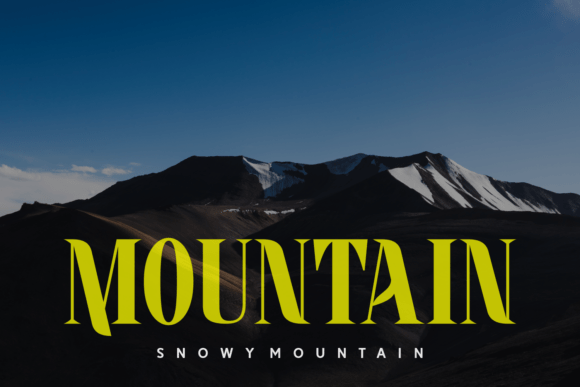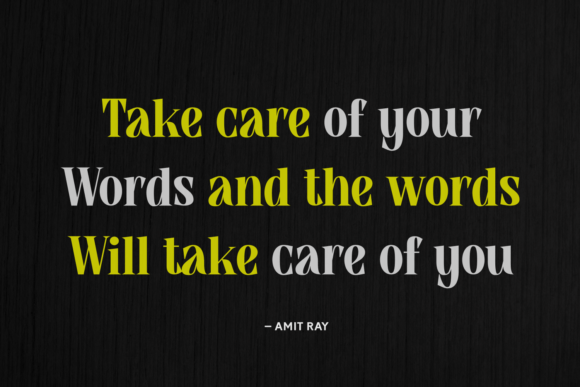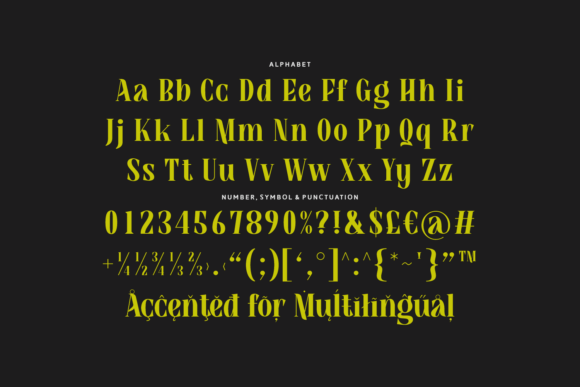
Introduction to Metion Font
Metion is a bold modern serif font designed to grab attention.
With its dramatic serifs, exaggerated curves, and unique stylistic alternates, Metion is ideal for creative projects that need to make a statementโsuch as movie titles, album covers, fashion campaigns, or editorial spreads Its expressive nature gives your typography a bold, commanding energy while retaining elegance and legibility.
Key Features of Metion Font